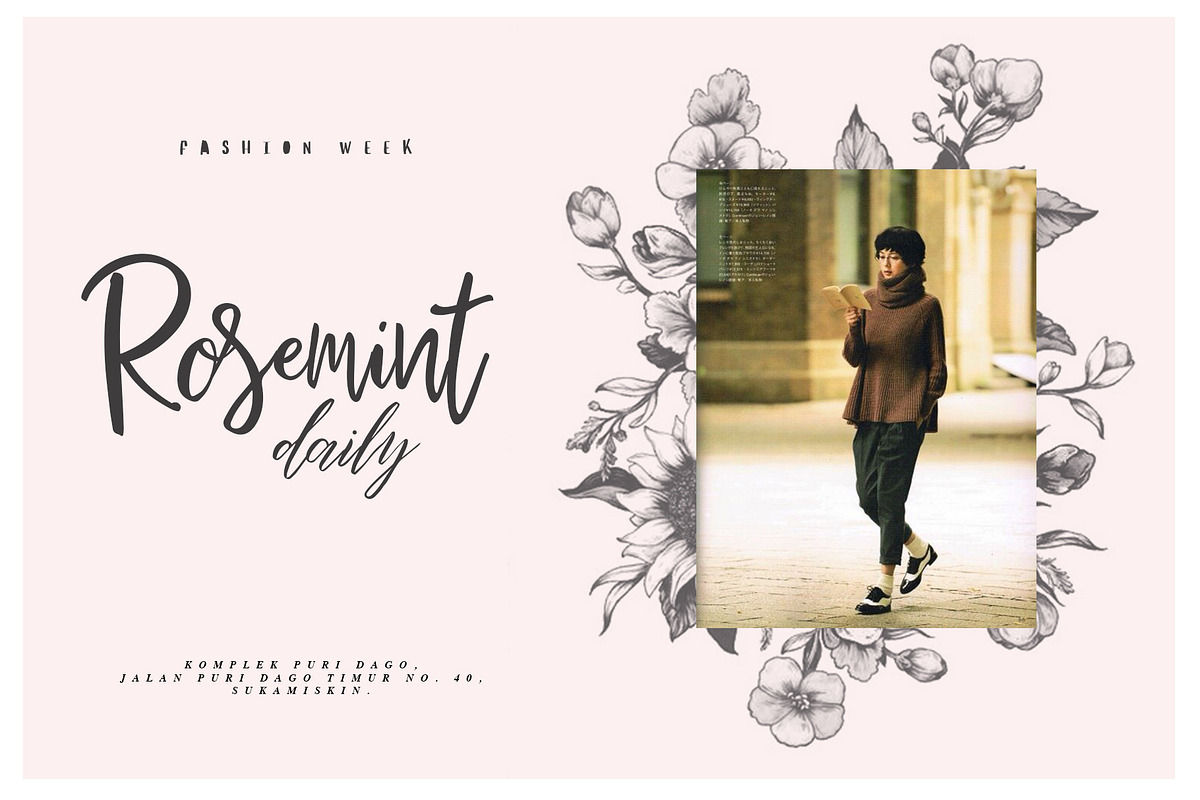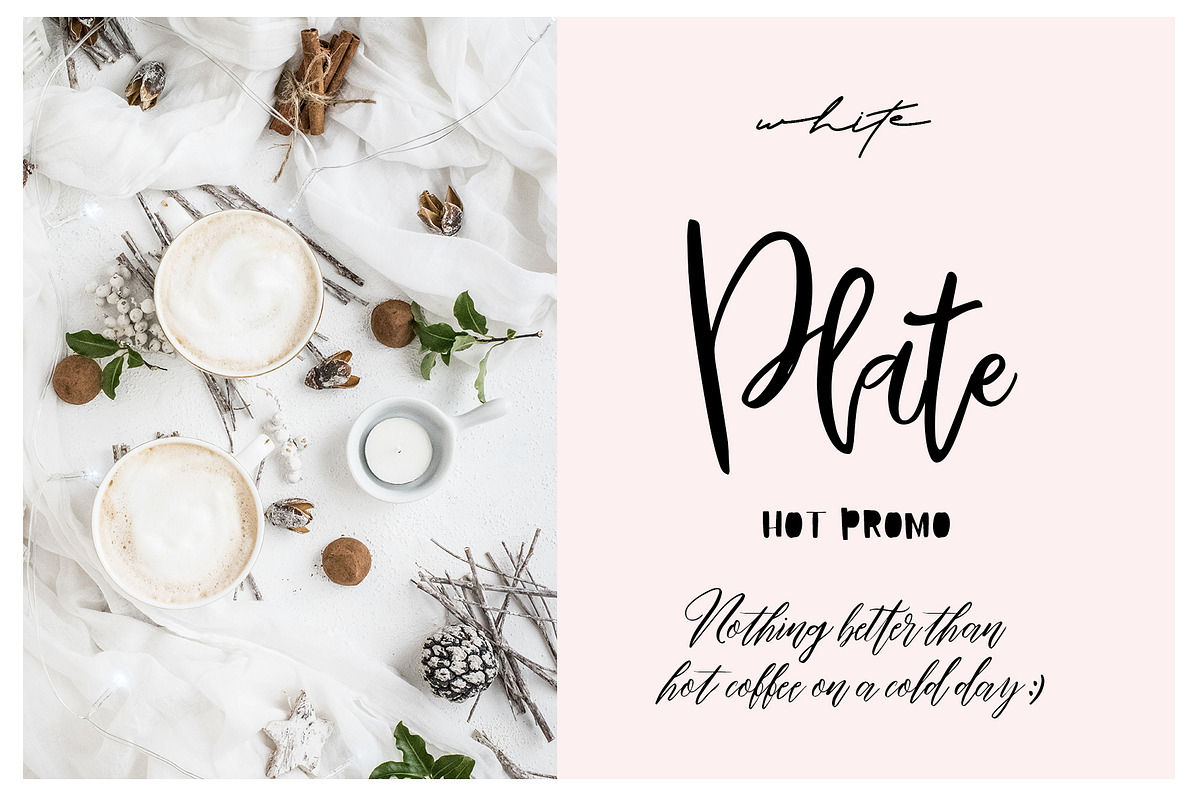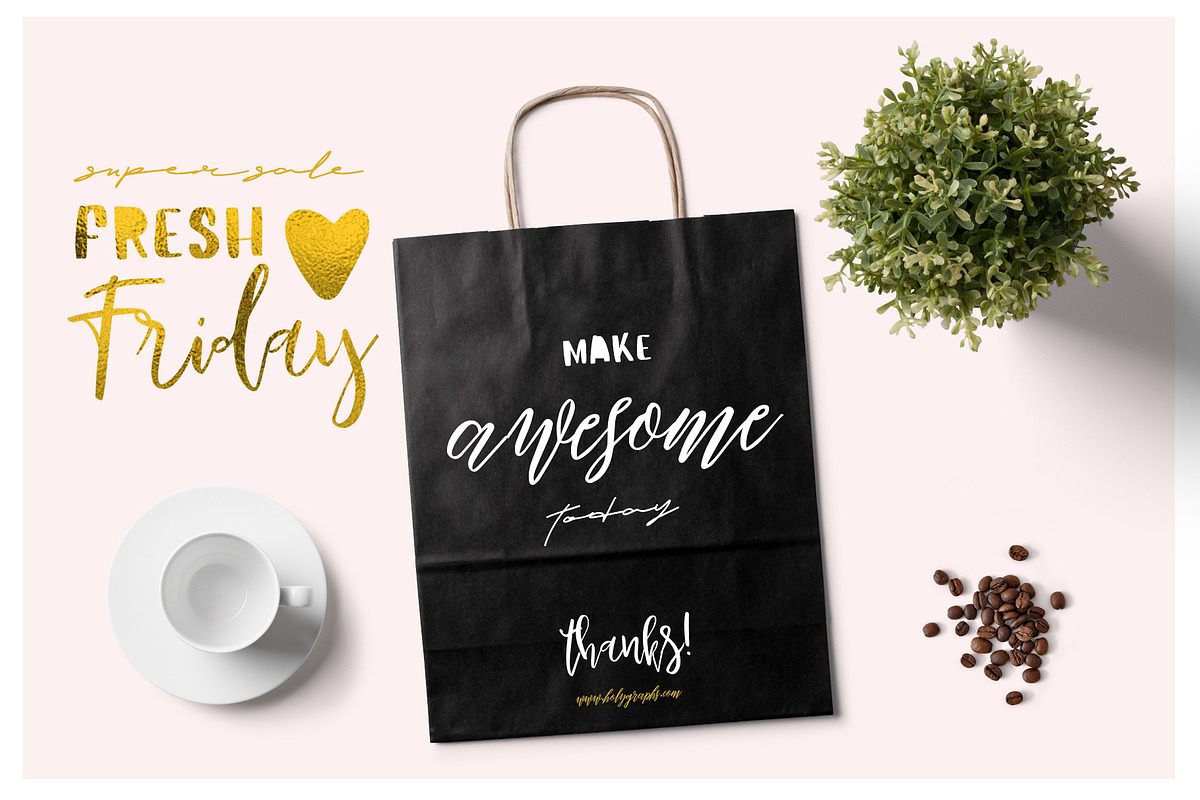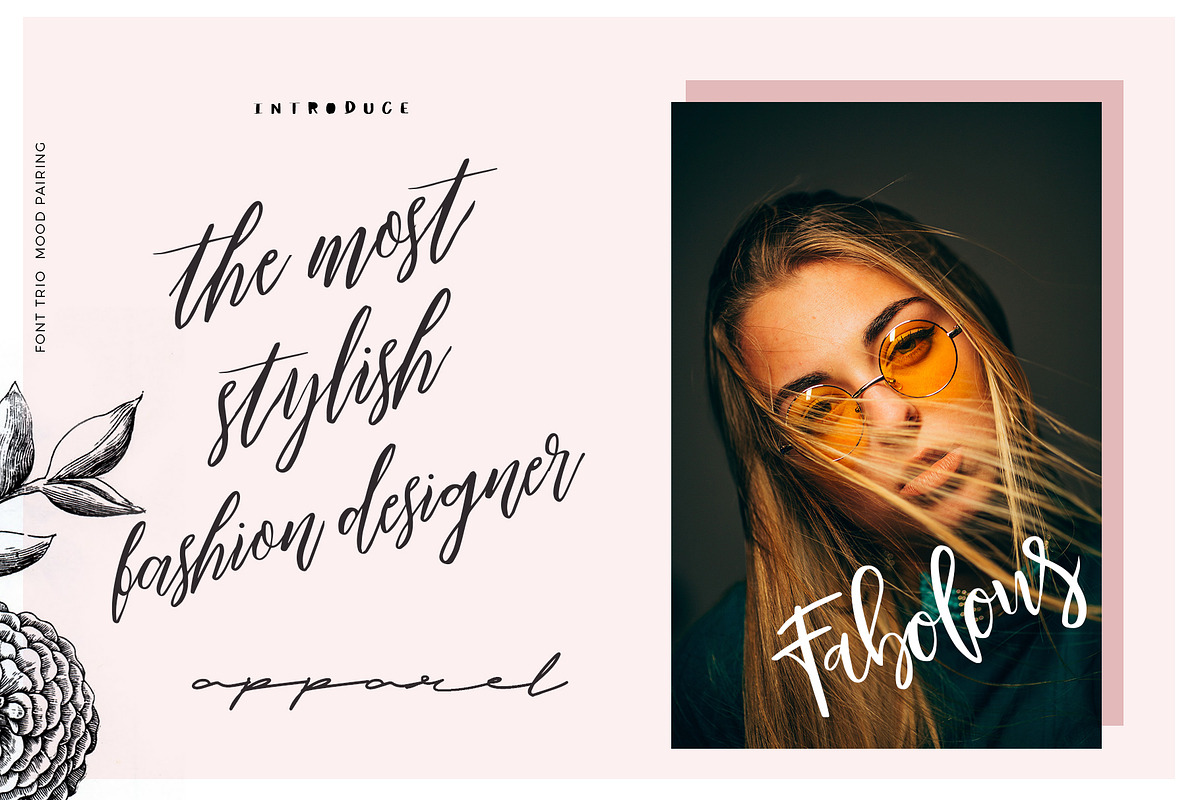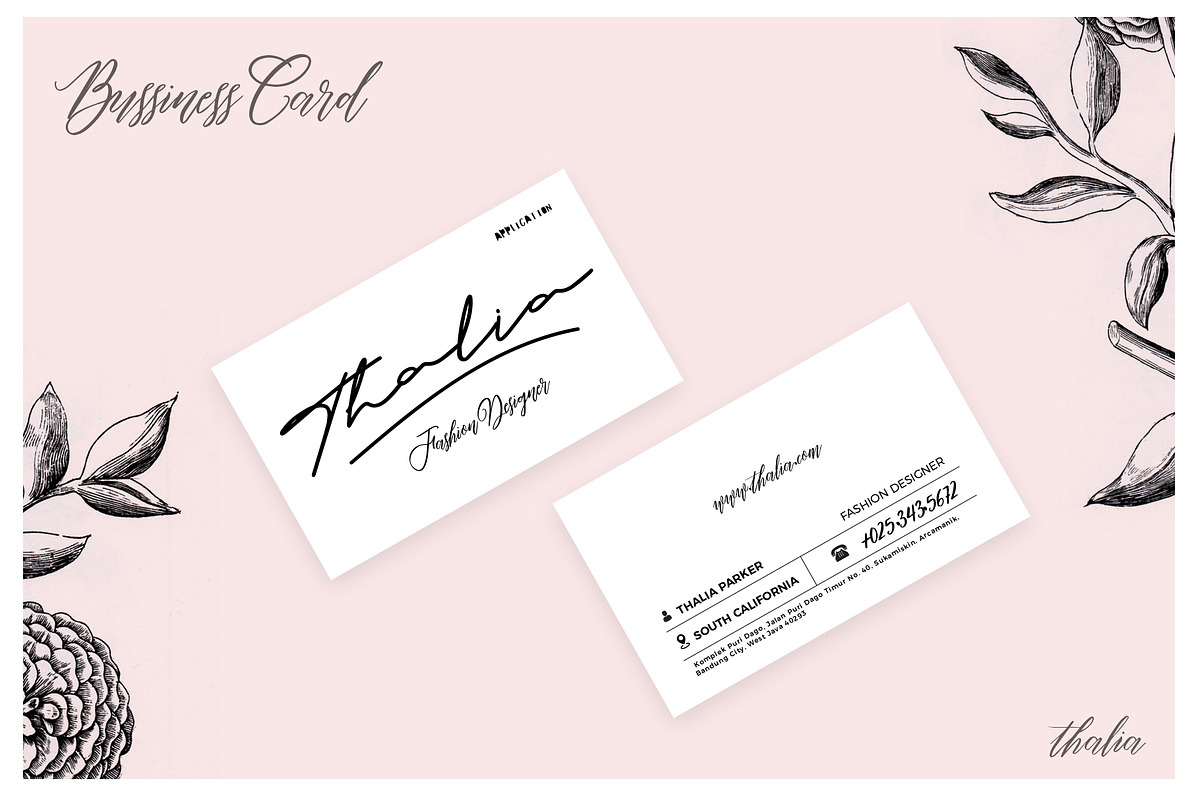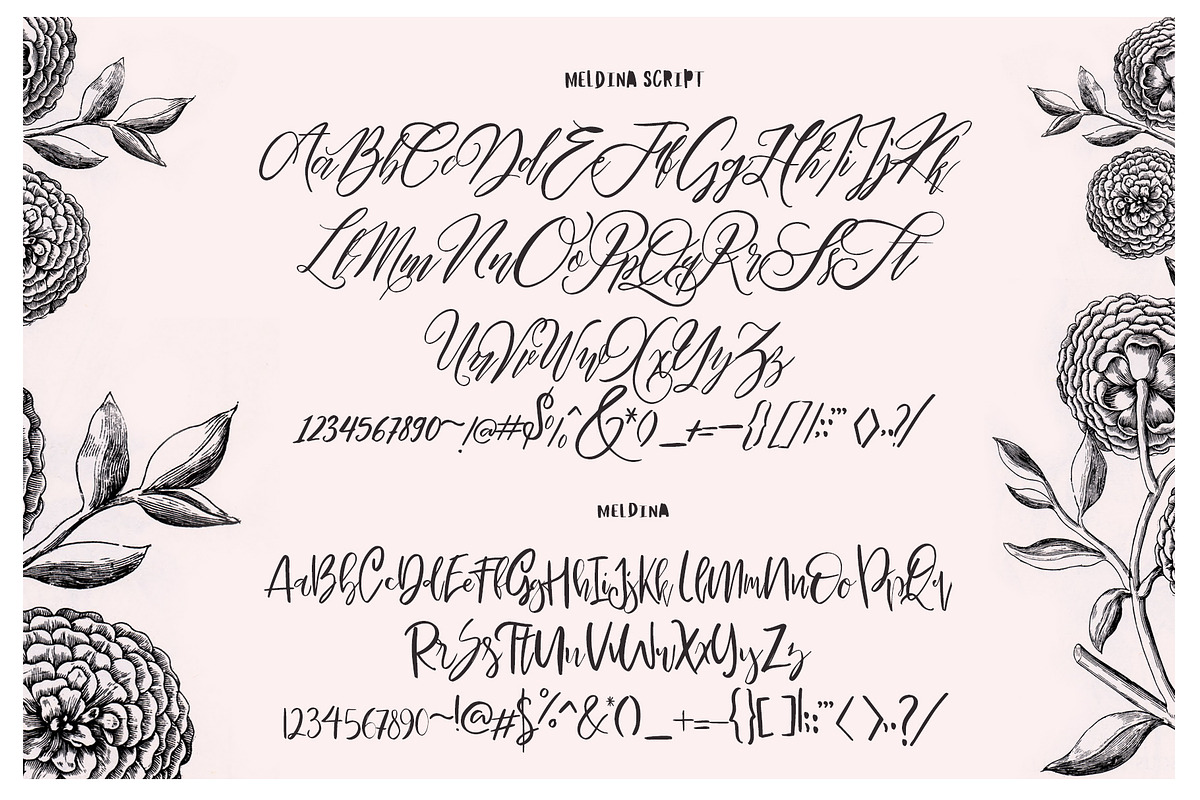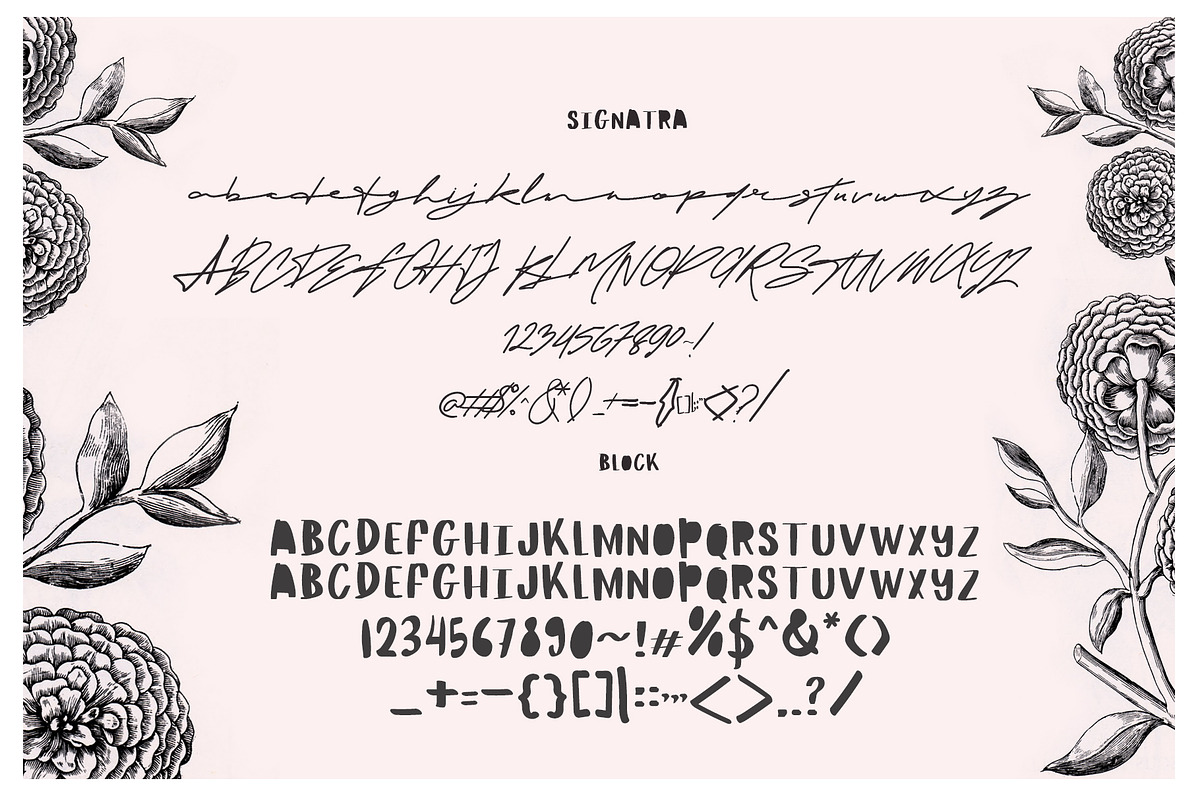
Maldina Feminime (4 fonts)
Maldina handmade typeface is font pairing categories, they made from handmade method, it is perfect for branding, event, invitation card, gift promo card, Quote, Poster, Signature name card, lovely instagram posts, and many more.
Maldina is 4 fonts pairing which is:
Everyfonts is very subtle one by one, its perfect match. You will love it all.